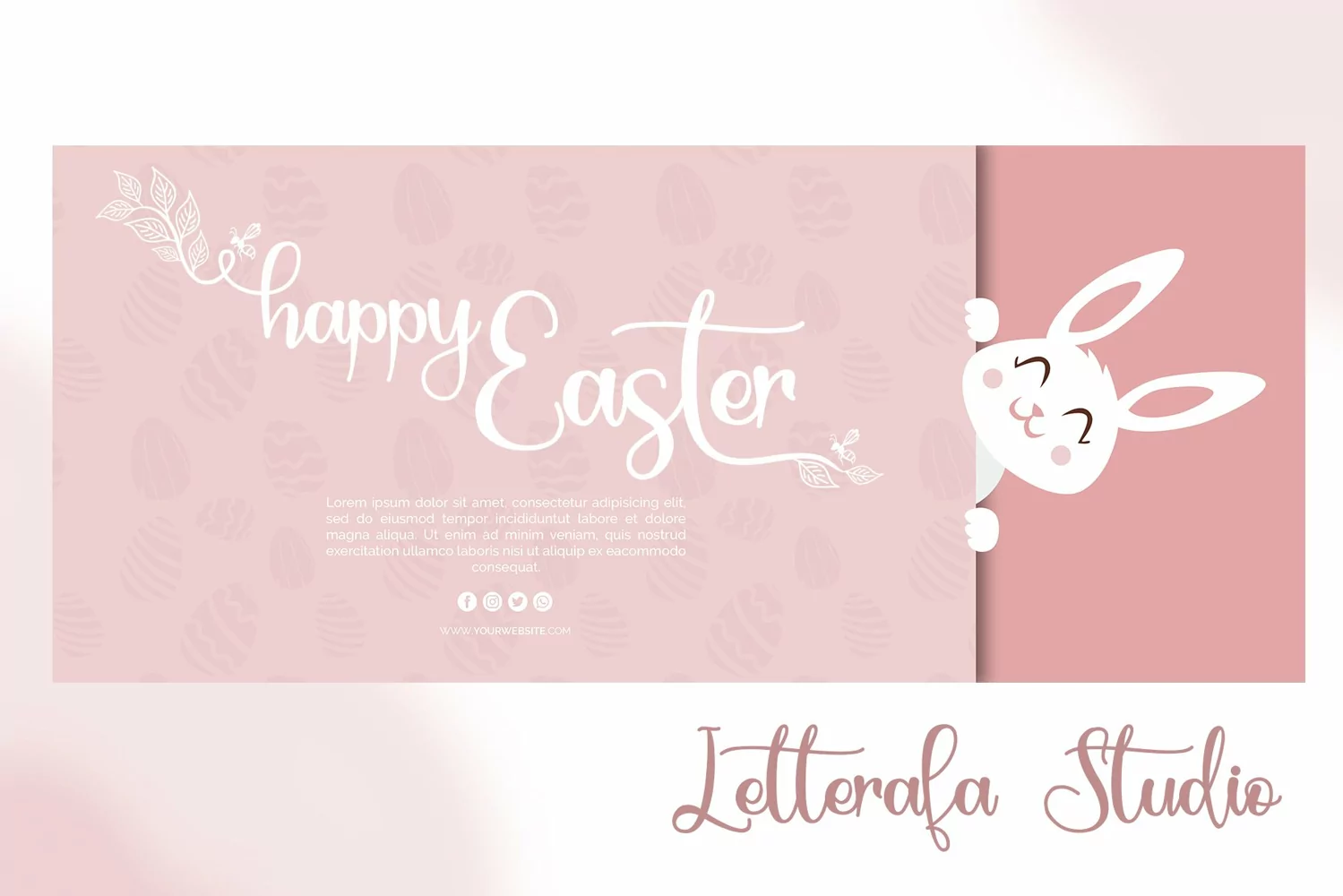
Springbee - Modern Calligraphy
Springbee
SPRINGBEE
Springbee Font is a modern calligraphy font by Letterafa Studio. It has flowing letters that will give your designs a unique and sweet look with leaves and bee characters. Springbee font is perfect; logos, greeting cards, a package design, a brand identity, craft design, any DIY project, book title, wedding invitation, packaging, and more.
- Basic Uppercase and Lowercase
- Uppercase Alternate (A-Z)
- Lowercase Alternate (a-z) and Swash (a-z)
- Ligature
- Titling
- Number and Punctuation
Springbee - Modern Calligraphy